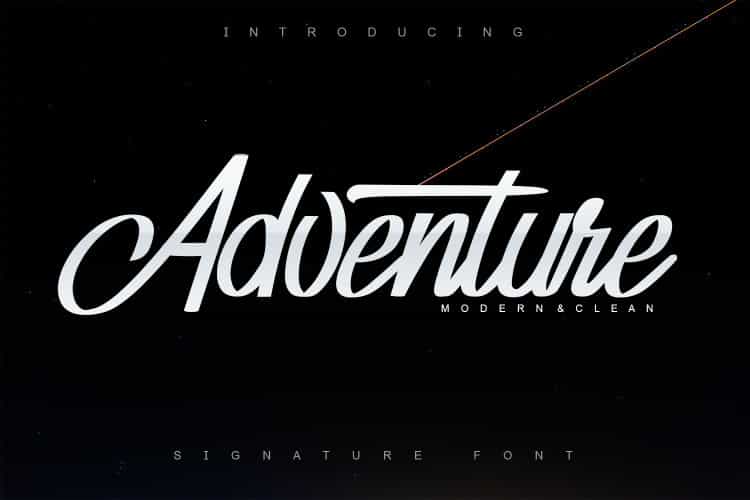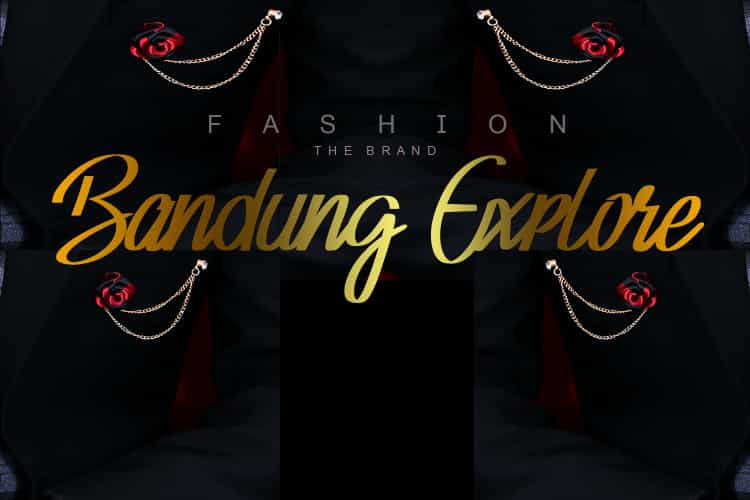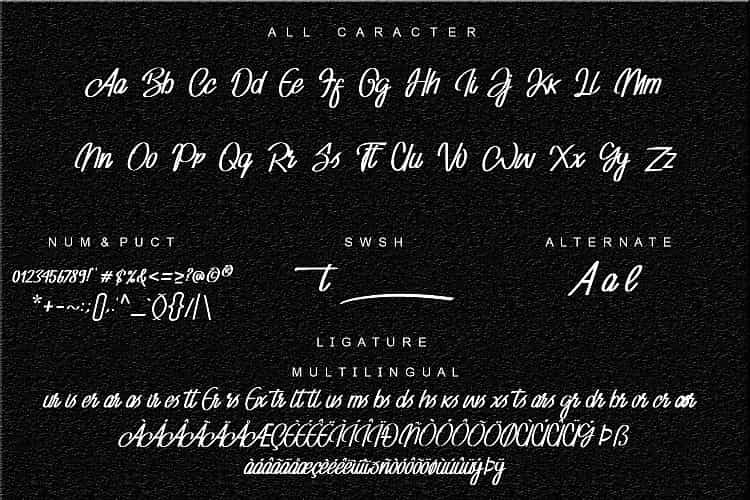
Introducing Adventure Font! Adventure It is design and shared by Halymunt Studio. The Adventure is a cool, classy, modern, clean, and stylish is guaranteed to add an eye-catching appeal to your logo designs, brand imagery, handwritten quotes, product packaging, merchandise & social media posts and any more.